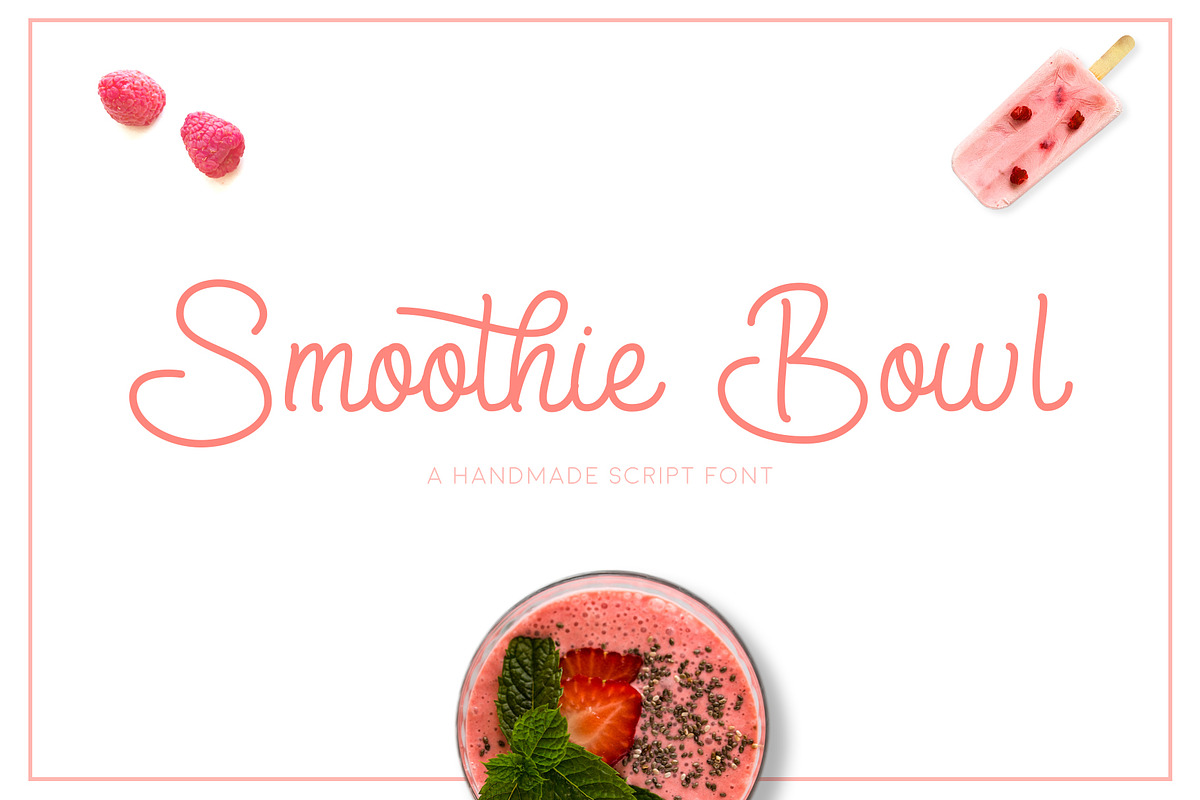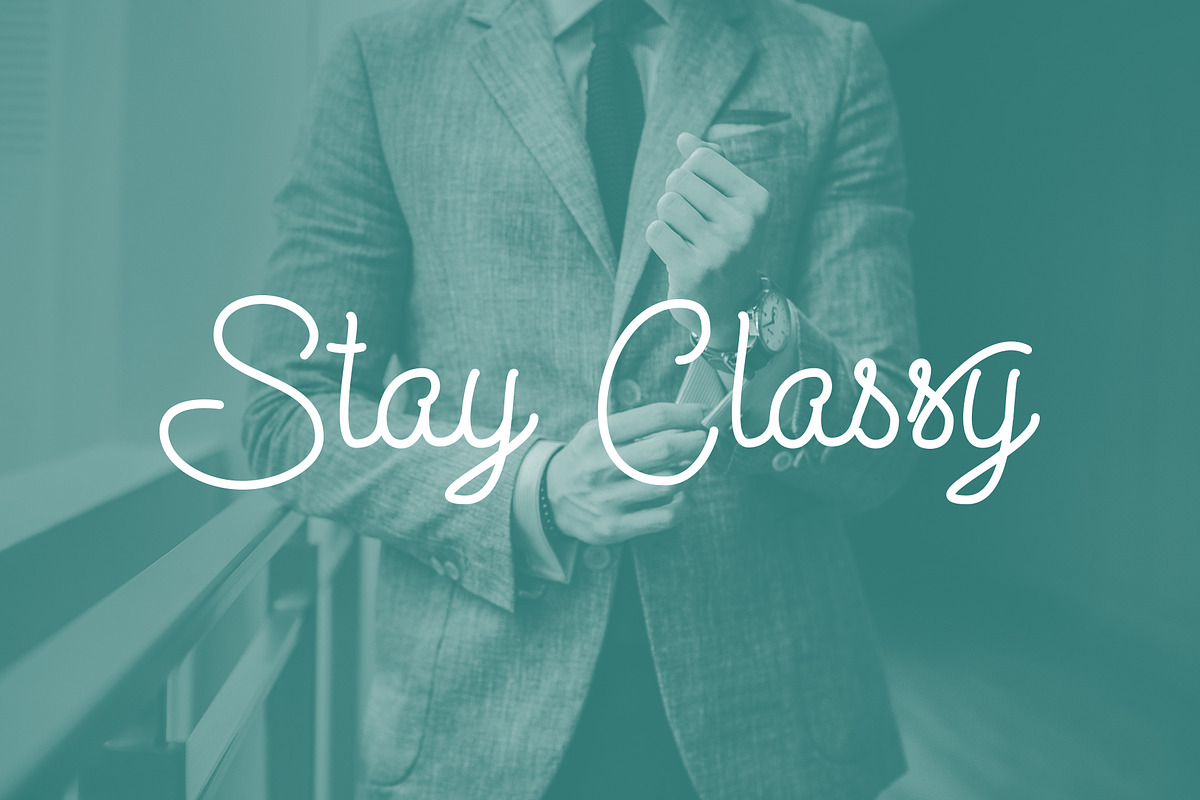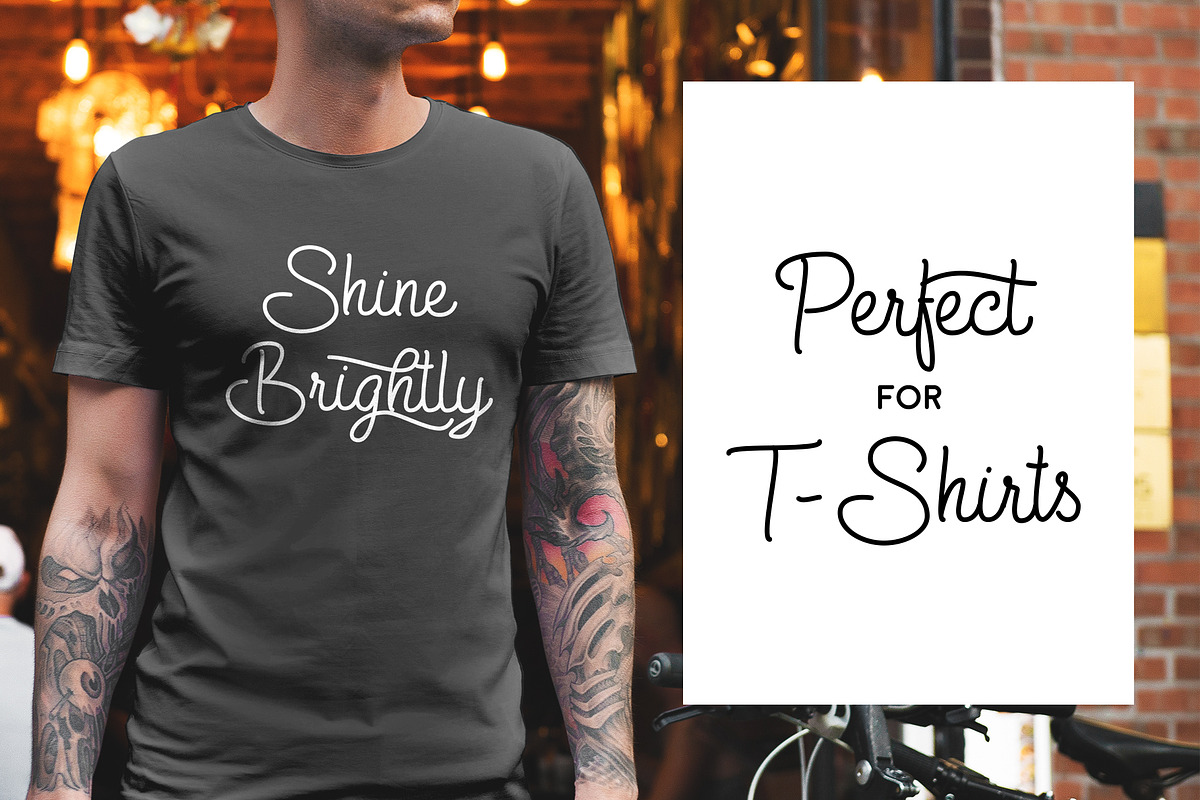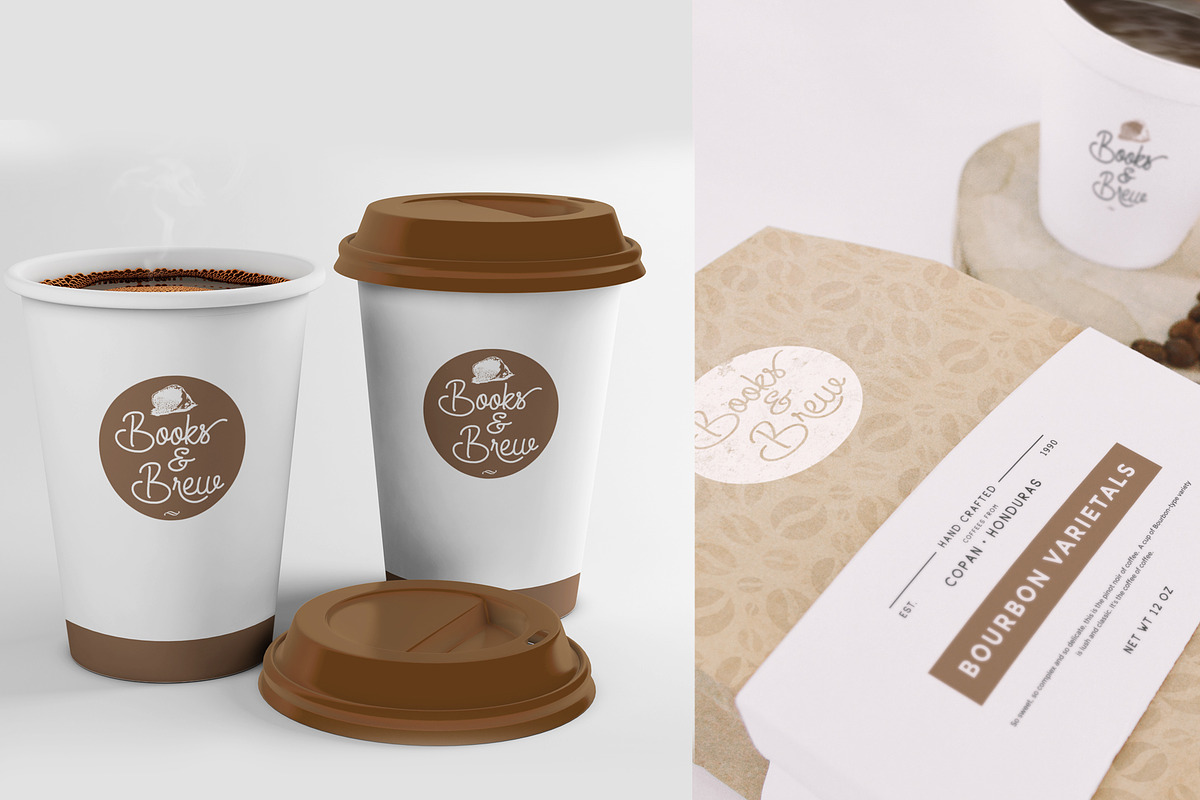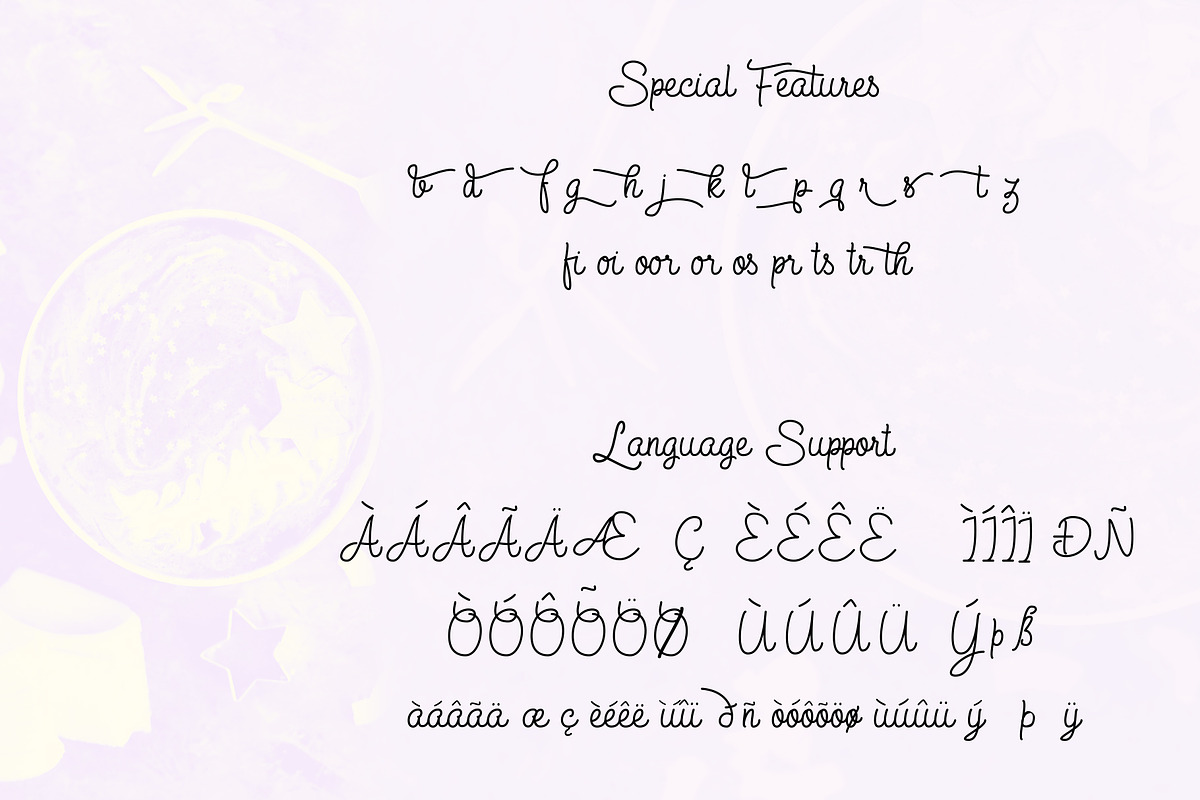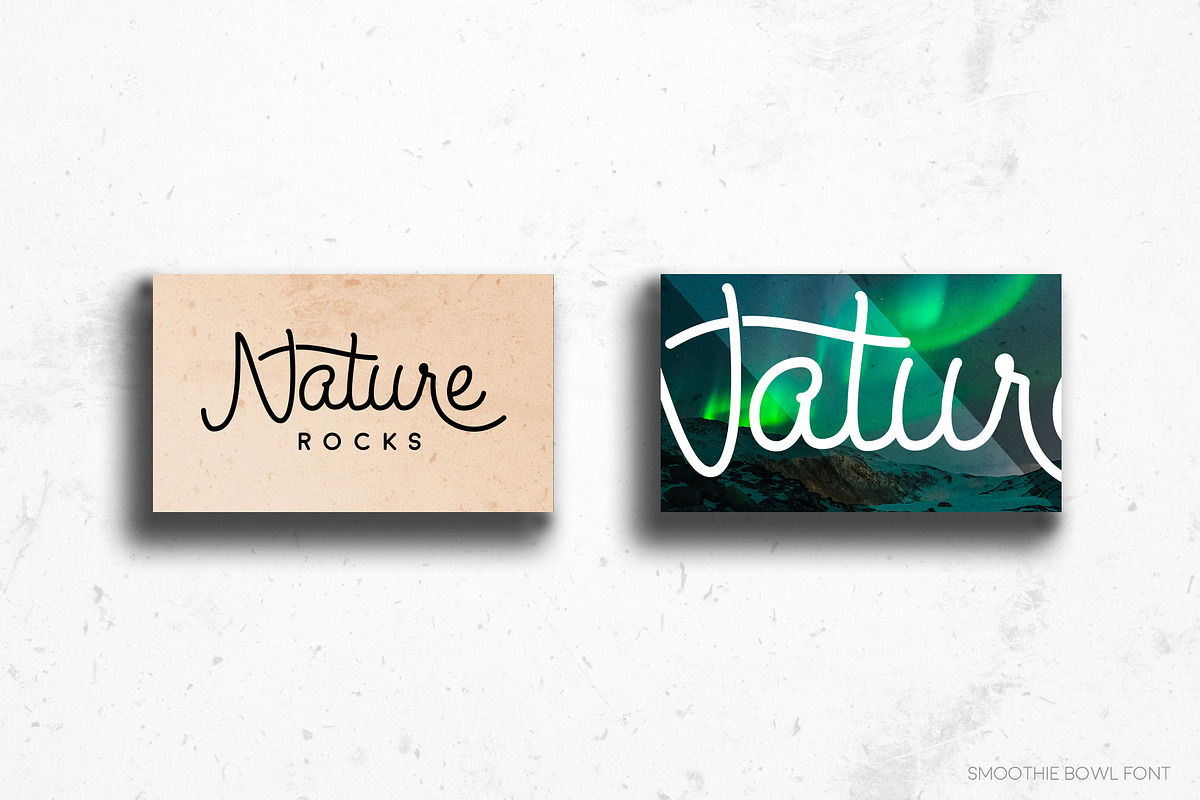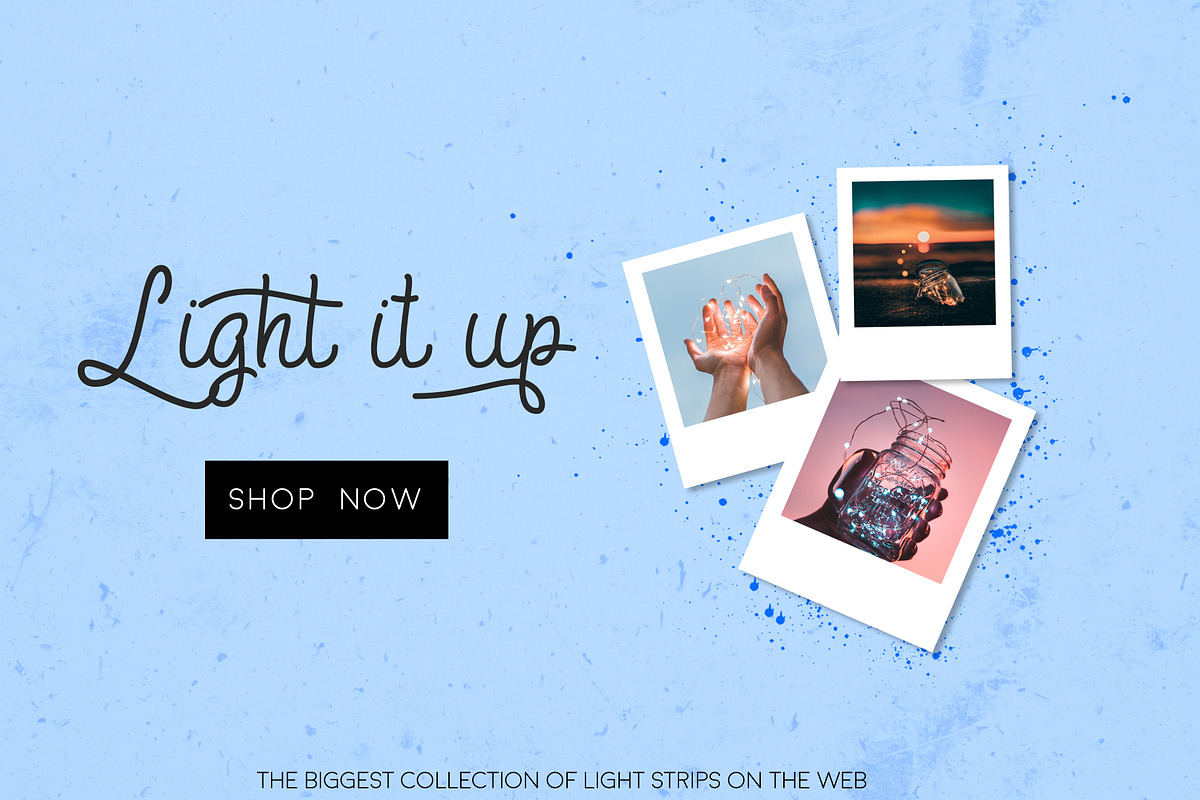
Smoothie Bowl Script Font
Smoothie Bowl is a casual hand made script font with smooth flow and lot of ligatures and alternates.
Ligatures: fi oi oor or os pr ts tr th
Alternates: b d f g h j k l p q r s t z
Smoothie Bowl font also include multilingual support for most western European languages.